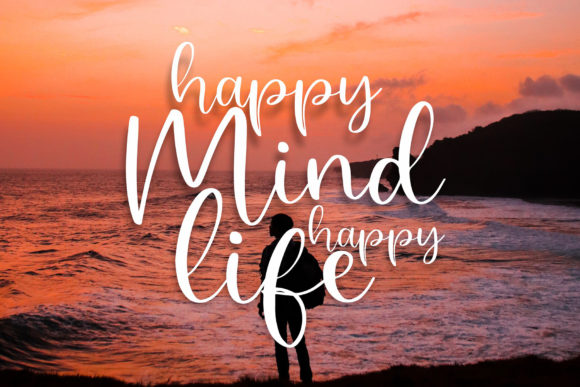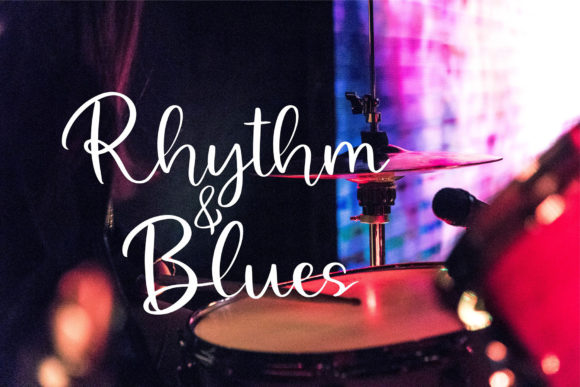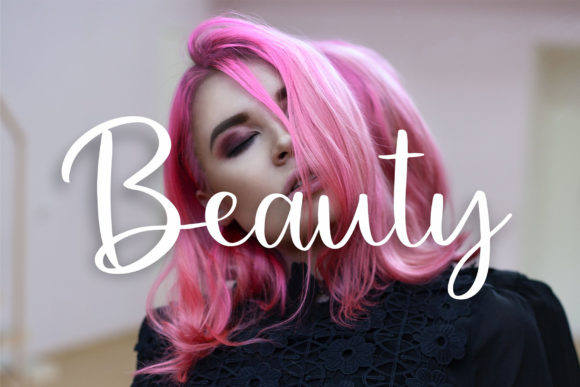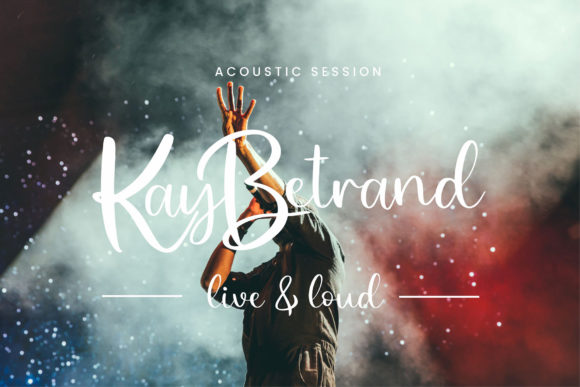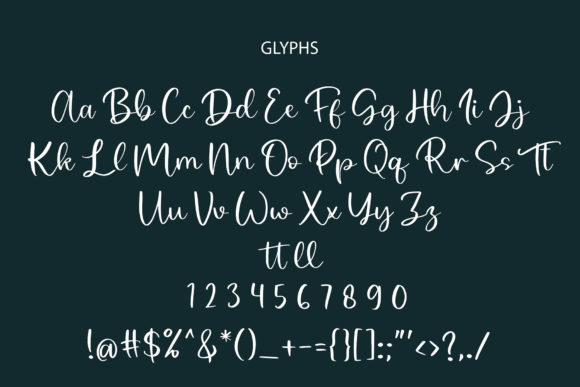
Farydi Font: Elevate Your Designs with Elegance and Sophistication
In the world of typography, a font can make or break a design. For designers and crafters, finding the perfect font that embodies elegance, luxury, and modernity can be a daunting task. However, look no further than Farydi Font, a modern script font that is taking the design world by storm. With its delicate and flowing lines, Farydi Font is the perfect addition to any design project, adding a touch of sophistication and refinement.
The Beauty of Farydi Font
Farydi Font is a modern script font that boasts a beautiful rhythm, created by its intricate and flowing lines. This font is designed to make your text appear elegant, luxurious, and modern, perfect for a wide range of design projects. Whether you’re working on branding projects, logos, wedding designs, social media posts, advertisements, product packaging, T-shirt design, product designs, labels, photography, watermarks, invitations, or stationery, Farydi Font is the perfect choice.
Key Features of Farydi Font
- Elegant and Luxurious: Farydi Font is designed to add a touch of elegance and luxury to your designs, making it perfect for high-end branding projects and sophisticated designs.
- Modern and Fresh: With its modern script style, Farydi Font is perfect for designers looking to add a fresh and contemporary touch to their designs.
- Versatile: Farydi Font is a versatile font that can be used for a wide range of design projects, from logos and branding to social media posts and product packaging.
- Easy to Read: Despite its elegant and flowing lines, Farydi Font is easy to read, making it perfect for body text and large blocks of text.
Farydi Font is perfect for designers and crafters who want to elevate their designs and add a touch of sophistication. With its wide range of uses, Farydi Font is a valuable addition to any design library. Whether you’re a professional designer or a crafter, Farydi Font is a great choice for:
- Branding Projects: Create a luxurious and modern brand identity with Farydi Font, perfect for high-end brands and businesses.
- Wedding Designs: Add a touch of elegance and sophistication to your wedding designs, including invitations, stationery, and wedding announcements.
- Social Media Posts: Elevate your social media posts with Farydi Font, making them stand out in a crowded feed.
- Product Packaging: Add a touch of luxury and sophistication to your product packaging, making it perfect for high-end products.
Tips for Using Farydi Font
To get the most out of Farydi Font, here are a few tips:
- Use it Sparingly: Farydi Font is a statement font, so use it sparingly to make a big impact.
- Pair it with a Sans-Serif Font: Pair Farydi Font with a sans-serif font for a modern and elegant contrast.
- Experiment with Colors: Farydi Font looks great in a range of colors, so experiment to find the perfect hue for your design.
In conclusion, Farydi Font is a modern script font that is perfect for designers and crafters looking to add a touch of elegance, luxury, and sophistication to their designs. With its delicate and flowing lines, Farydi Font is a versatile font that can be used for a wide range of design projects. Whether you’re working on branding projects, logos, wedding designs, social media posts, or product packaging, Farydi Font is a great choice. So why wait? Try Farydi Font today and elevate your designs to the next level!